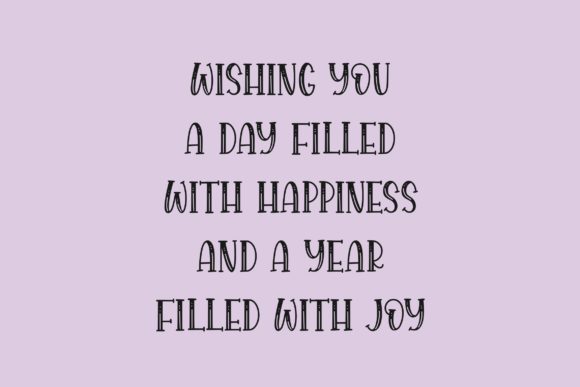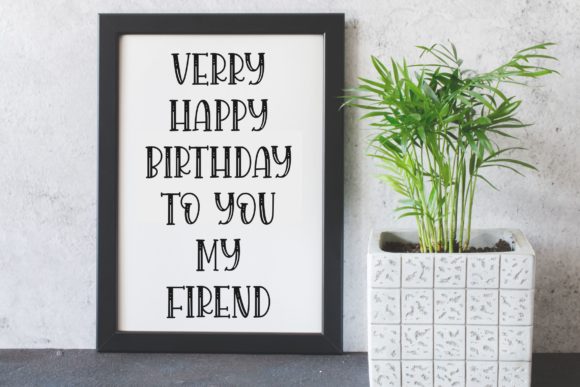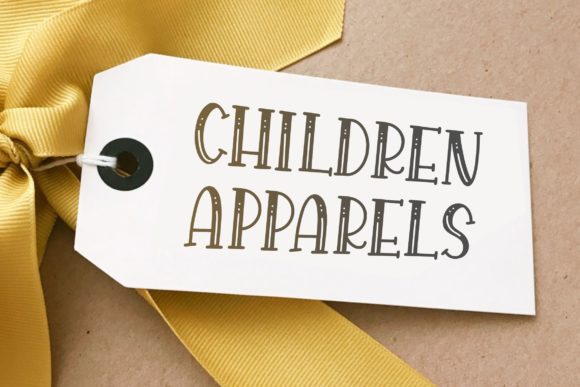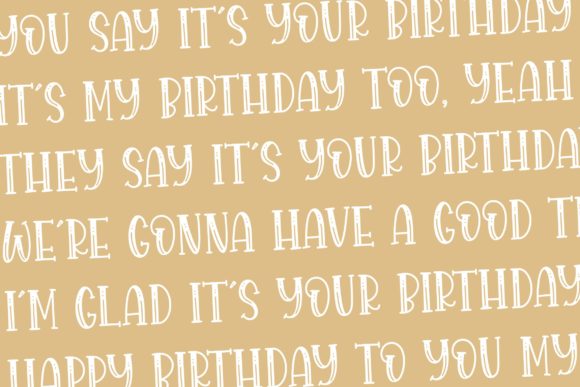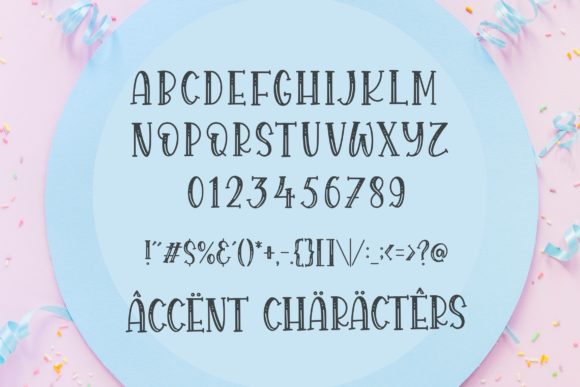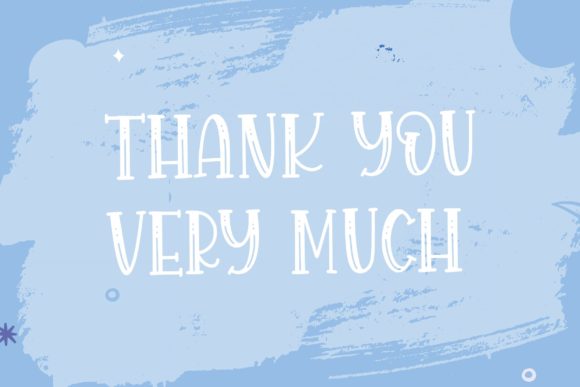
Introduction to Royal Bean Font Font
Fonts play a crucial role in design, and the Royal Bean Font font is a typeface that brings both character and versatility to any project. Whether you’re working on a branding project, a website, or a print design, the Royal Bean Font font offers a unique style that can elevate your work.
Royal Bean is a modern and friendly display font.
Fall in love with it and bring your projects to the highest levels .
Key Features of Royal Bean Font Font
Why Choose Royal Bean Font Font?
The Royal Bean Font font is more than just a typeface – it’s a design tool that helps you communicate your message with style and clarity. Its unique character set and versatile design make it suitable for a wide range of applications, from elegant invitations to bold headlines.
With its carefully crafted letterforms and balanced proportions, the Royal Bean Font font ensures readability and visual appeal across all mediums.
What makes Royal Bean Font font special?
The Royal Bean Font font stands out with its unique design, exceptional readability, and versatility across various design applications.